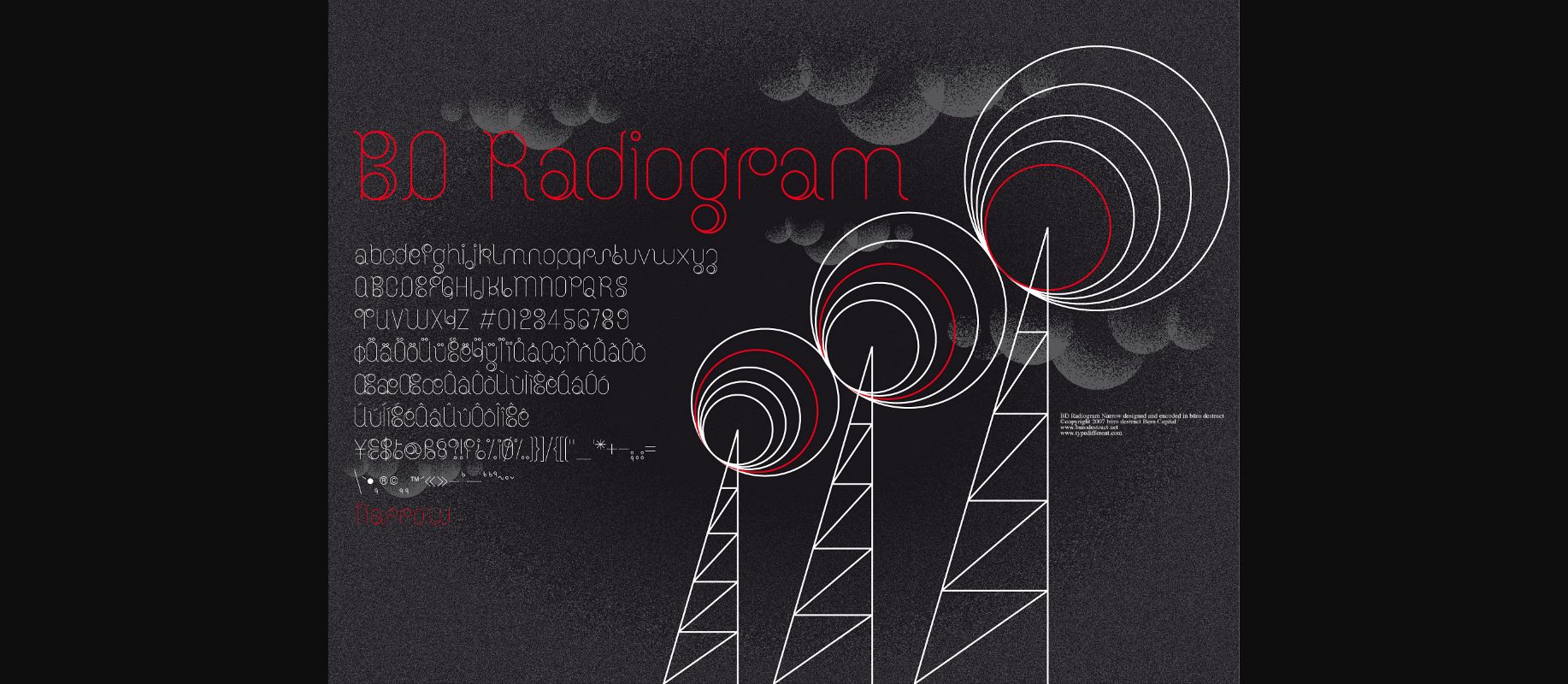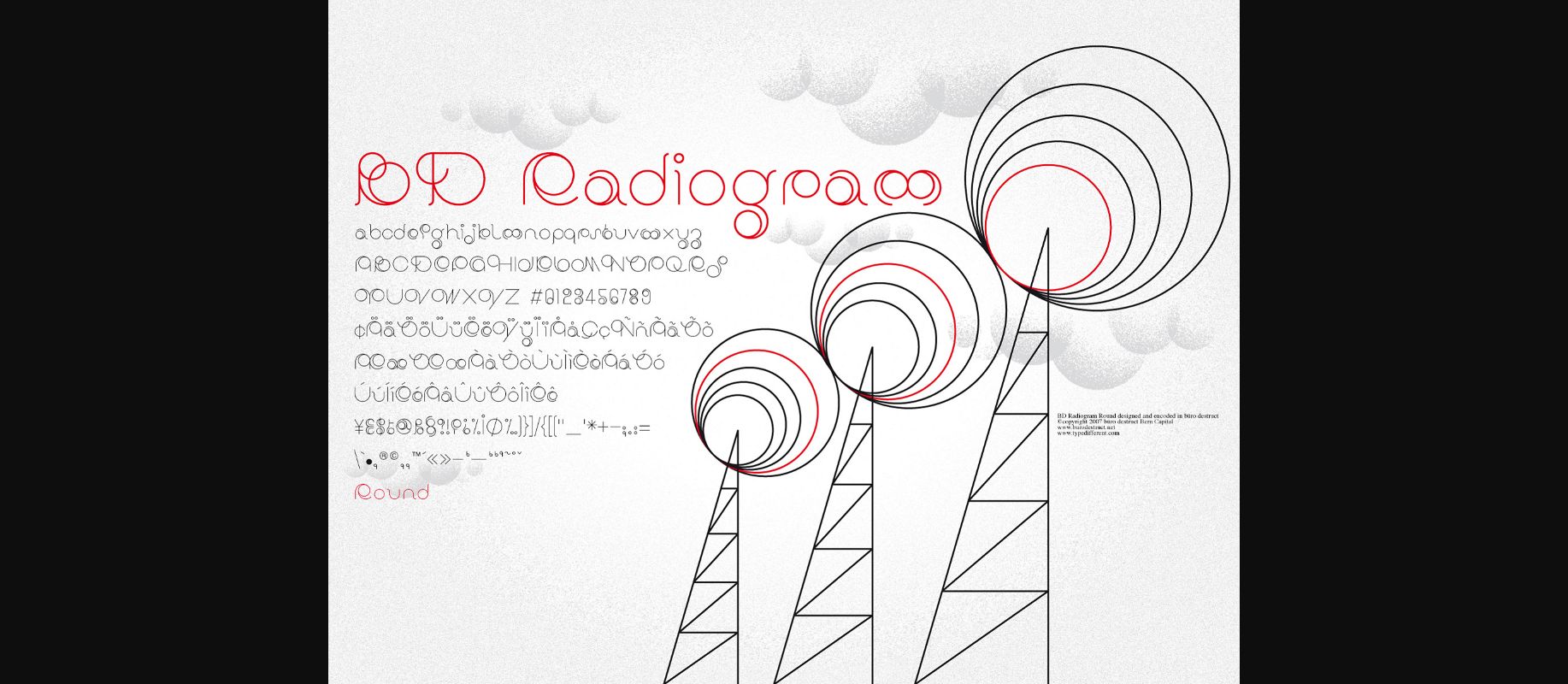
BD Radiogram Font
About BD Radiogram Font
BD Radiogram is a thin lined font in two styles, rounded and narrow. Its curves are like airwaves, light tones in the air, sweet breezes, like notes on a sheet of music. It works well with illustrations, naive paintings or photos with ambience. © 2007, Lopetz Büro Destruct for typedifferent.com